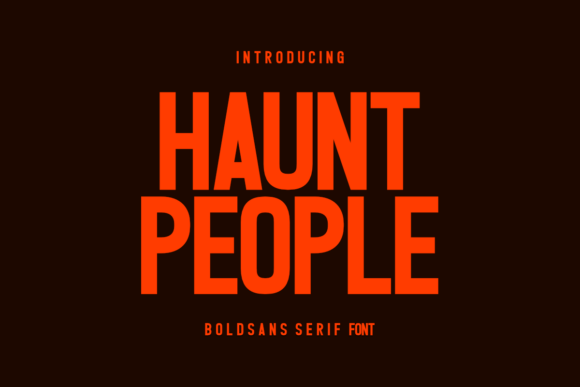
Haunt People Font: The Ultimate Modern Sans-Serif Font for Your Creative Needs
In the world of typography, fonts play a crucial role in conveying the tone and personality of a brand or design. With the numerous font options available, it can be overwhelming to choose the perfect one that suits your creative needs. However, if you’re looking for a modern sans-serif font with a stunning, cool feel, look no further than Haunt People Font. In this article, we’ll dive into the features and benefits of Haunt People Font, and explore its versatility in various design applications.
What is Haunt People Font?
Haunt People is a modern sans-serif font designed to provide a fresh and contemporary look to your designs. Its clean lines, simple shapes, and elegant curves make it perfect for a wide range of creative projects. Whether you’re a designer, artist, or DIY enthusiast, Haunt People Font is an excellent choice for adding a touch of sophistication and style to your work.
Key Features of Haunt People Font
- Modern sans-serif design: Haunt People Font boasts a sleek and modern sans-serif design that exudes a sense of simplicity and elegance.
- Cool and stunning feel: The font’s unique characteristics give it a cool and stunning feel that’s sure to capture the attention of your audience.
- Versatile and flexible: Haunt People Font is highly versatile and can be used for various design applications, from logos and branding to t-shirts, mugs, and more.
- Easy to read: The font’s clear and legible design makes it easy to read, even at small sizes.
Design Applications for Haunt People Font
Haunt People Font is an incredibly versatile font that can be used for a wide range of design applications. Here are some of the ways you can use this amazing font:
Logos and Branding
Haunt People Font is perfect for creating modern and stylish logos that reflect your brand’s personality. Its clean design and elegant curves make it an excellent choice for businesses, startups, and entrepreneurs looking to establish a strong brand identity.
T-Shirts and Apparel
Haunt People Font is a great choice for designing t-shirts, hoodies, and other apparel. Its cool and stunning feel makes it perfect for creating eye-catching designs that will appeal to a wide range of audiences.
Mugs and Drinkware
Add a touch of personality to your mugs, water bottles, and other drinkware with Haunt People Font. Its clear and legible design makes it easy to read, even at small sizes.
Invitations and Greeting Cards
Create beautiful and elegant invitations, greeting cards, and stationery with Haunt People Font. Its modern sans-serif design makes it perfect for formal and informal events.
Posters and Flyers
Haunt People Font is an excellent choice for designing posters, flyers, and brochures. Its bold and eye-catching design makes it perfect for grabbing the attention of your audience.
Packaging and Signs
Use Haunt People Font to create stunning packaging and signs that reflect your brand’s personality. Its clear and legible design makes it easy to read, even from a distance.
Cutting Boards and Printables
Add a touch of personality to your cutting boards, printables, and other kitchen essentials with Haunt People Font. Its modern sans-serif design makes it perfect for creating functional and stylish designs.
Crafting and DIY Projects
Haunt People Font is a great choice for crafting and DIY projects, such as scrapbooking, journaling, and card making. Its elegant curves and clean lines make it perfect for adding a touch of sophistication to your creations.
Benefits of Using Haunt People Font
Haunt People Font offers numerous benefits that make it an excellent choice for your design needs. Here are some of the advantages of using this amazing font:
Unique and Creative
Haunt People Font is a unique and creative font that will set your designs apart from the rest. Its modern sans-serif design and elegant curves make it perfect for adding a touch of sophistication to your work.
Highly Versatile
Haunt People Font is highly versatile and can be used for a wide range of design applications. Its flexibility makes it an excellent choice for designers, artists, and DIY enthusiasts.
Easy to Read
The font’s clear and legible design makes it easy to read, even at small sizes. This makes it perfect for designs that require a high level of readability.
Scalable
Haunt People Font is highly scalable, making it perfect for designs that require a high level of detail. Its clear and legible design ensures that it remains stylish and elegant even at large sizes.
In conclusion, Haunt People Font is an excellent choice for anyone looking for a modern sans-serif font with a stunning, cool feel. Its versatility, flexibility, and elegance make it perfect for a wide range of design applications, from logos and branding to t-shirts, mugs, and more. With its clear and legible design, Haunt People Font is sure to elevate your designs and add a touch of sophistication to your work.